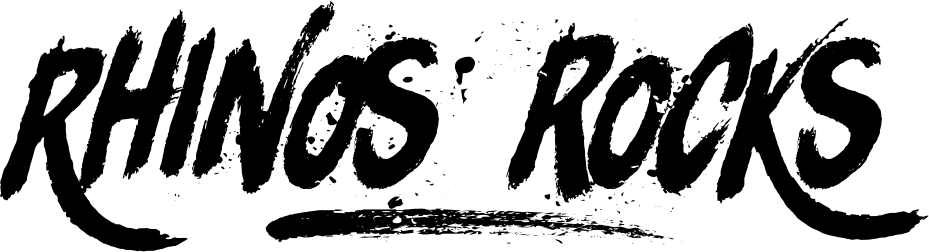
Rhinos rocks Font
Some fonts give you a natural feel, and brush fonts are amongst those, that also look a bit aggressive. The Rhinos rocks font that we are introducing is similar to a paint-brushed signature which is awesome. This is a unique font that you should take advantage of.
The most common places that this aggressive bold font is used are invitation cards, posters, branding, or wherever you need a hand-drawn style or effect, which will be perfect.